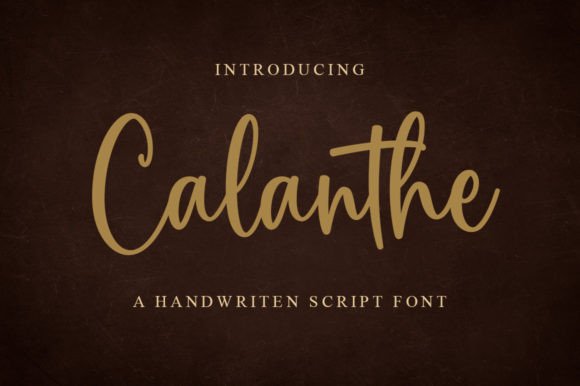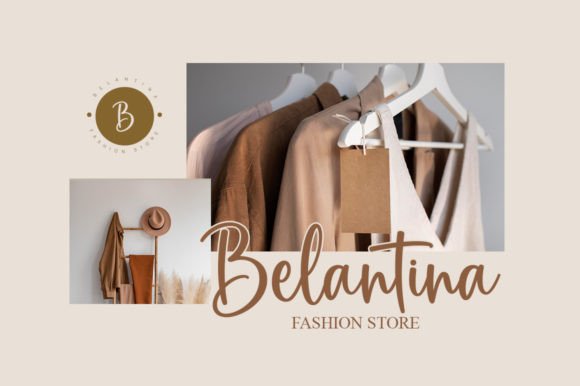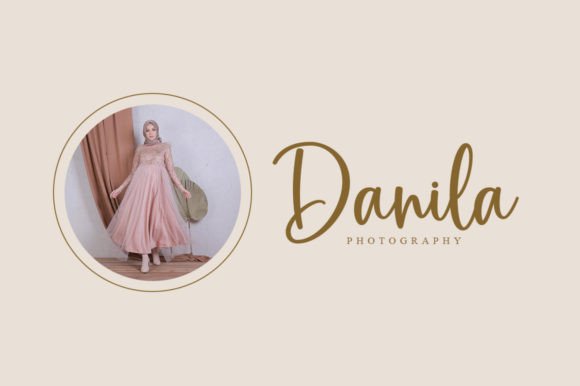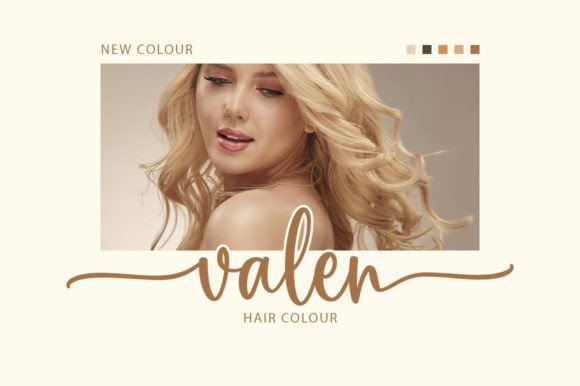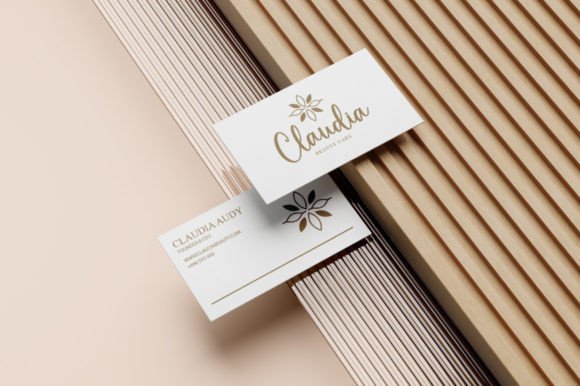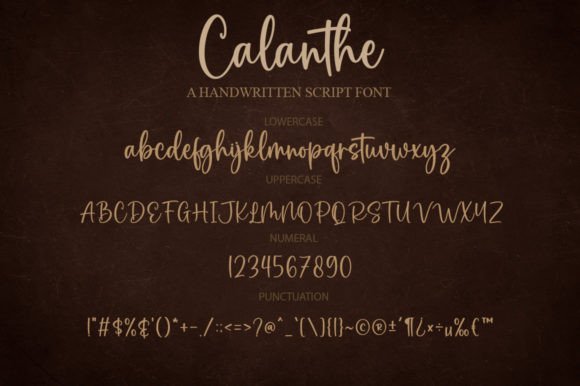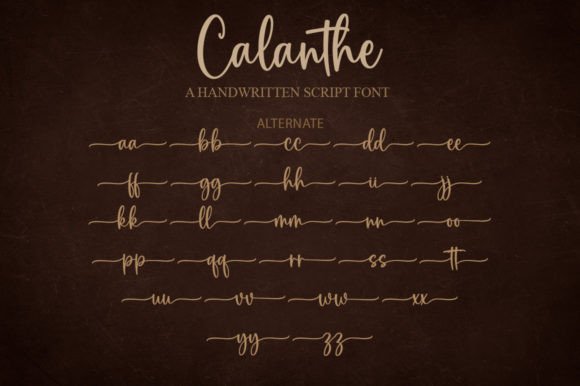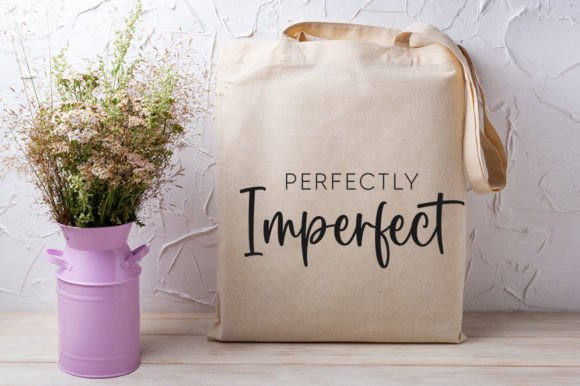
Calanthe Font
About Calanthe Font
Calanthe is a finely crafted, delicate, and elegant handwritten font distinguished by its graceful flow. With beautifully balanced characters, it proves to be a versatile addition to a diverse range of designs. What sets Calanthe apart is its PUA encoding, granting convenient access to all the glyphs and swashes, allowing for effortless customization.
The delicacy of Calanthe is evident in its flowing strokes, adding a touch of sophistication to your designs. The elegance it exudes makes it suitable for various contexts, from formal documents to more creative and artistic projects.
The well-balanced characters of Calanthe contribute to its visual appeal, ensuring versatility that aligns with a wide pool of design concepts. This makes it adaptable for applications such as branding, invitations, stationery, and more.
The PUA encoding feature is a valuable asset, simplifying the process of accessing the font’s full range of glyphs and swashes. This flexibility allows for easy customization, making Calanthe a user-friendly choice for those seeking a personalized touch in their designs.
Whether you’re working on professional documents, creative endeavors, or anything in between, Calanthe is designed to offer a harmonious blend of elegance and accessibility. Its flowing script and versatile encoding make it a delightful option for designers seeking a delicate yet powerful handwritten font for a multitude of creative purposes.